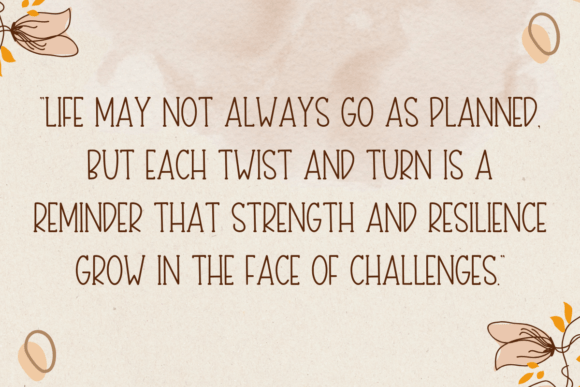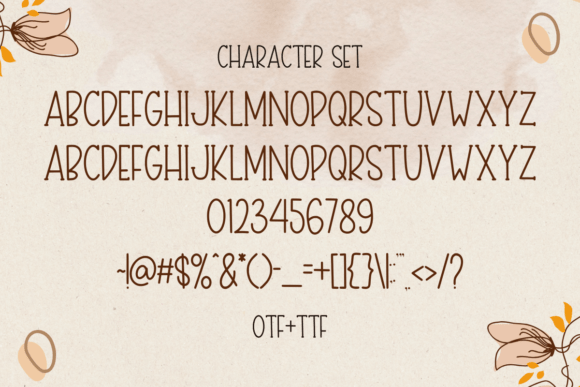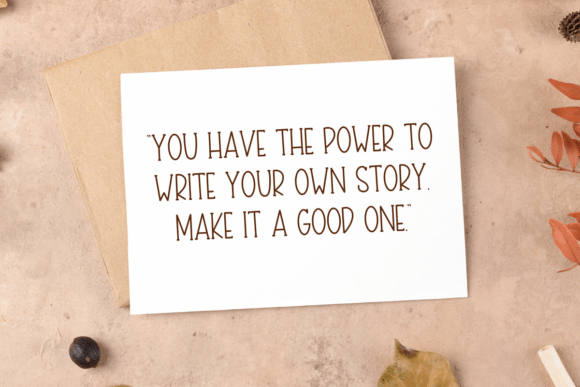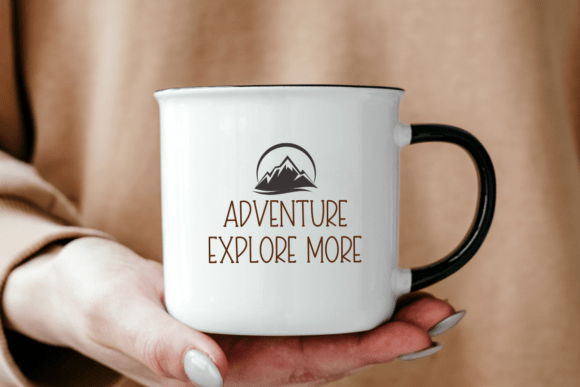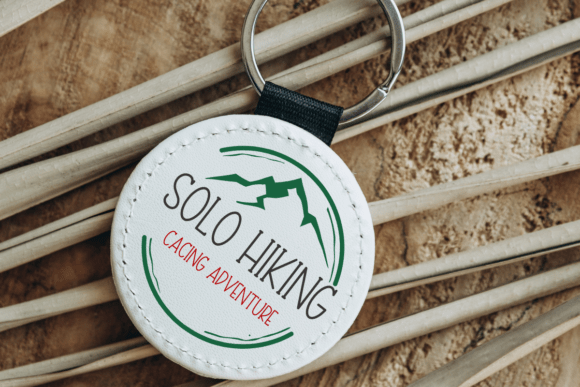
Introducing Element Wrapping Font: The Perfect Playful Handwritten Font for Crafters and Designers
Are you a crafter, designer, or maker looking for a font that adds a touch of playfulness and friendliness to your projects? Look no further than Element Wrapping Font! This delightful handwritten font is perfect for a wide range of creative applications, from crafts and planners to KDP, stickers, greeting cards, and more.
What Makes Element Wrapping Font So Special?
Element Wrapping Font is a unique and charming font that boasts a cute and friendly style, making it ideal for crafters, designers, and makers who want to add a personal touch to their projects. Its playful and approachable vibe works great for:
- Crafts: Add a personal touch to your handmade crafts, such as knitted items, jewelry, or ceramics.
- Planners: Create custom planners, journals, and organizers that are both functional and visually appealing.
- KDP: Use Element Wrapping Font to create eye-catching book covers, journals, and planners for Kindle Direct Publishing.
- Stickers: Design adorable stickers for laptops, water bottles, or any other surface that needs a touch of personality.
- Greeting Cards: Create heartfelt and playful greeting cards for special occasions.
Perfect for Cricut, Sublimation, and DIY Projects
Element Wrapping Font is also optimized for use with popular crafting and design tools, including:
- Cricut: Cut out intricate designs and shapes with ease, and use Element Wrapping Font to add a personal touch to your Cricut projects.
- Sublimation: Use Element Wrapping Font to create stunning sublimation designs for t-shirts, mugs, and other products.
- DIY Projects: Add a touch of personality to your DIY projects, such as home decor, candles, or soap making.
Why Choose Element Wrapping Font?
So, why should you choose Element Wrapping Font for your next project? Here are just a few reasons:
- Unique and Playful Style: Element Wrapping Font boasts a one-of-a-kind, playful style that’s sure to make your projects stand out.
- Easy to Read: Despite its playful nature, Element Wrapping Font is easy to read, making it perfect for both digital and print applications.
- Versatile: Use Element Wrapping Font for a wide range of projects, from crafts and planners to KDP and stickers.
- Crafter-Friendly: Element Wrapping Font is designed with crafters and makers in mind, making it the perfect choice for DIY enthusiasts.
Tips for Using Element Wrapping Font
Here are a few tips for getting the most out of Element Wrapping Font:
- Experiment with Colors: Try pairing Element Wrapping Font with different colors and textures to add depth and interest to your projects.
- Mix and Match: Combine Element Wrapping Font with other fonts or graphics to create unique and eye-catching designs.
- Keep it Simple: Don’t be afraid to keep things simple – Element Wrapping Font works beautifully on its own or paired with a few select graphics.
Element Wrapping Font is a versatile and charming handwritten font that’s perfect for crafters, designers, and makers. With its playful and friendly style, it’s ideal for a wide range of creative applications, from crafts and planners to KDP, stickers, and greeting cards. Whether you’re a seasoned designer or a DIY enthusiast, Element Wrapping Font is sure to become a go-to in your font collection.